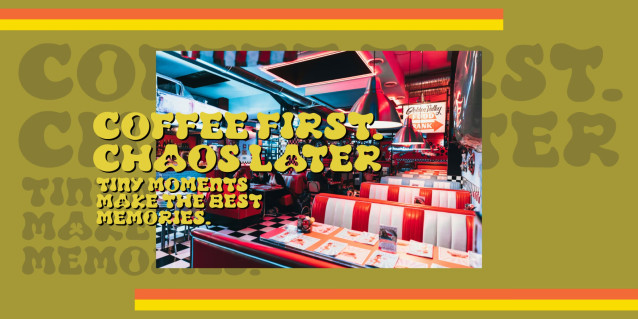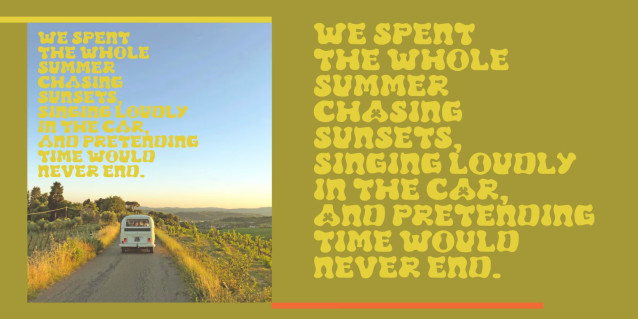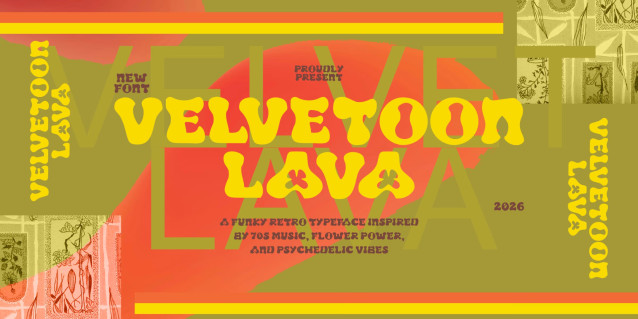
Velvetoon Lava Font
Velvetoon Lava is a bold groovy display font inspired by the psychedelic spirit of the 70s. Featuring playful curves, soft bubbly shapes, and funky handcrafted details, this typeface brings a warm vintage vibe to any creative project.
Designed with a retro aesthetic and modern versatility, Velvet Lava is perfect for posters, music covers, branding, packaging, social media graphics, logos, stickers, fashion designs, and nostalgic-themed artwork.
Its unique letterforms create a fun and expressive personality that instantly grabs attention while maintaining readability and charm.
Combining a fun, cartoonish aesthetic with smooth, melting fluid contours, this unique font brings an energetic and dynamic feel to any creative layout. Its thick, rounded strokes and organic shapes make it exceptionally eye-catching and filled with personality. Velvetoon Lava is perfectly suited for children’s book titles, animated series graphics, comic book lettering, toy packaging, posters, apparel design, and quirky social media content. Designed to stand out, it gives your text a vibrant, fluid, and unmistakably cheerful appearance that instantly grabs attention.